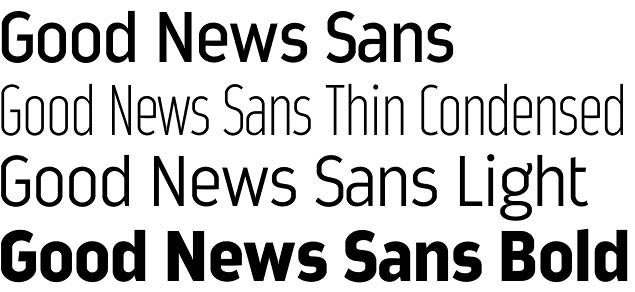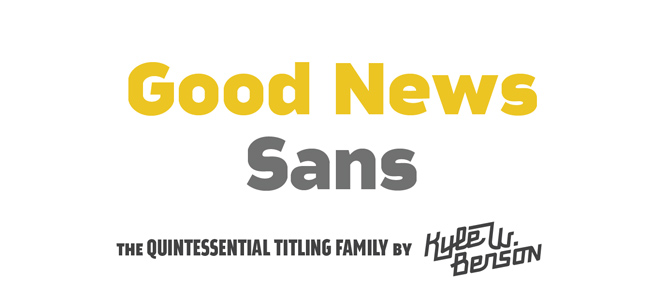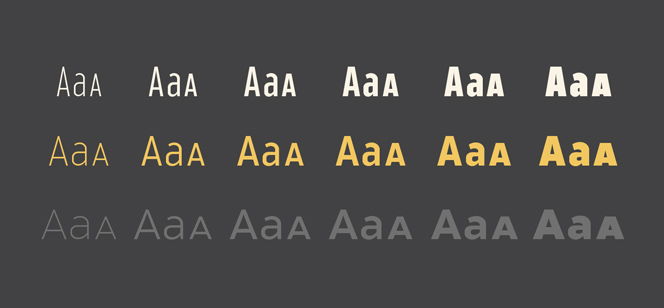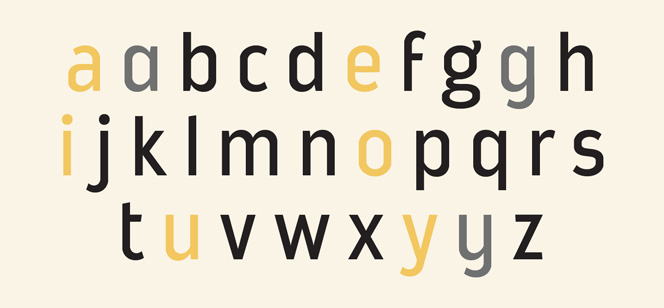
Good News Sans font
Good News Sans font by Kyle Wayne Benson is a rich Sans Serif family with a vintage breeze. It consists of 18 fonts in 6 weights (from Thin to Black) and 3 widths (from Condensed to Extended) to meet a wide range of printing uses. Good News Sans typeface family emits a feeling of grace and retro charm. Excellent choice for brochures, catalogues, drawing attention captions or posters.
Good News Sans font family offers extensive language support and a plenty of OpenType features. A full small caps set, vintage looking fractions, arrows, display asterisks, many stylistic alternates, and ordinal catchwords – all these are at your disposal to assist you in your graphic design efforts.